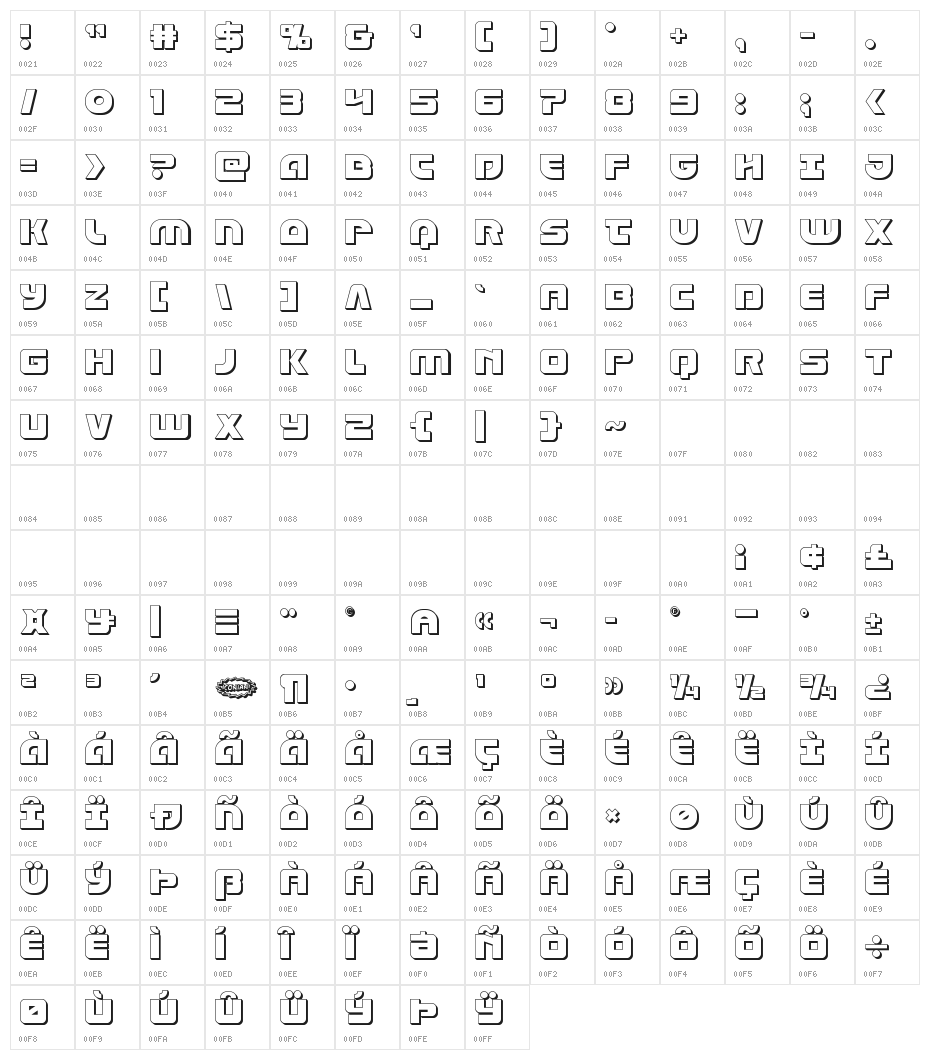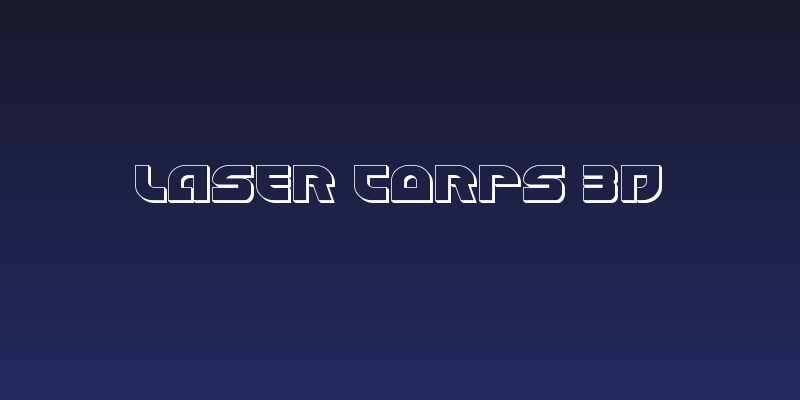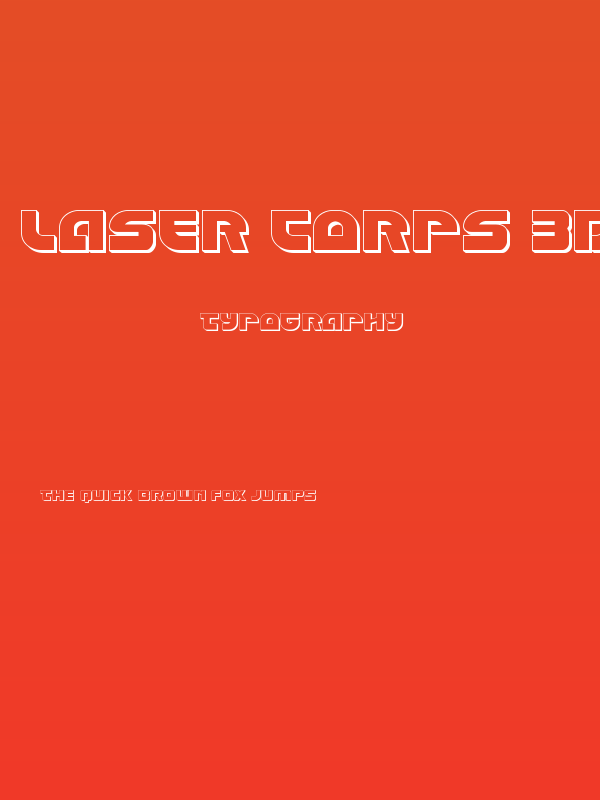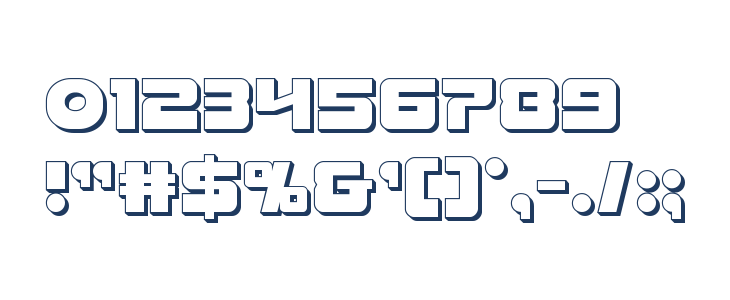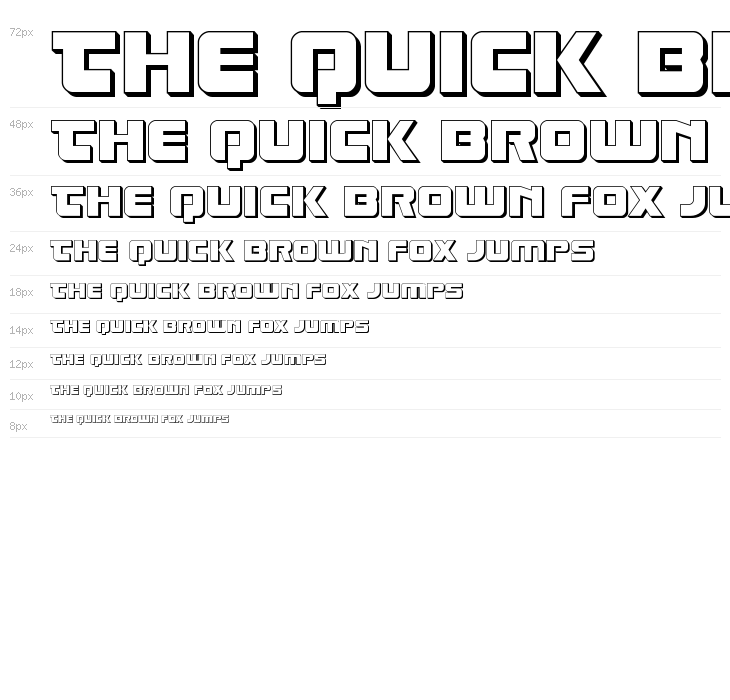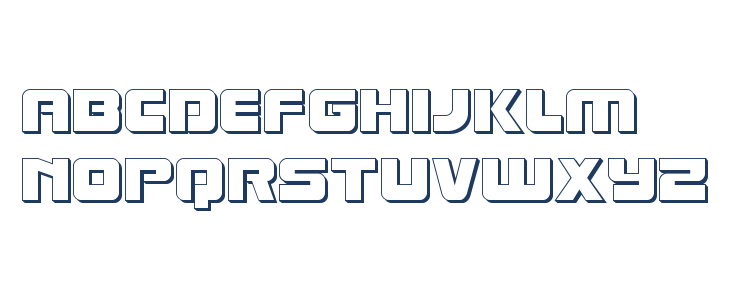
Laser Corps 3D Font
Laser Corps 3D Description
This font features a bold, futuristic design with a three-dimensional effect. The characters are outlined, giving them a distinct, blocky appearance that suggests depth and solidity. The geometric shapes are consistent throughout, with rounded edges and a uniform stroke width that enhances its modern aesthetic. The uppercase and lowercase letters maintain a cohesive style, while the numerals and special characters complement the overall look. This font is ideal for projects that require a strong, impactful visual presence.
LASER-CORPS-3D UPPERCASE
LASER-CORPS-3D LOWERCASE
LASER-CORPS-3D OTHER CHARS
| Proposed Projects | Ideal for sci-fi themed designs, video game titles, posters, and branding that requires a modern, impactful look. |